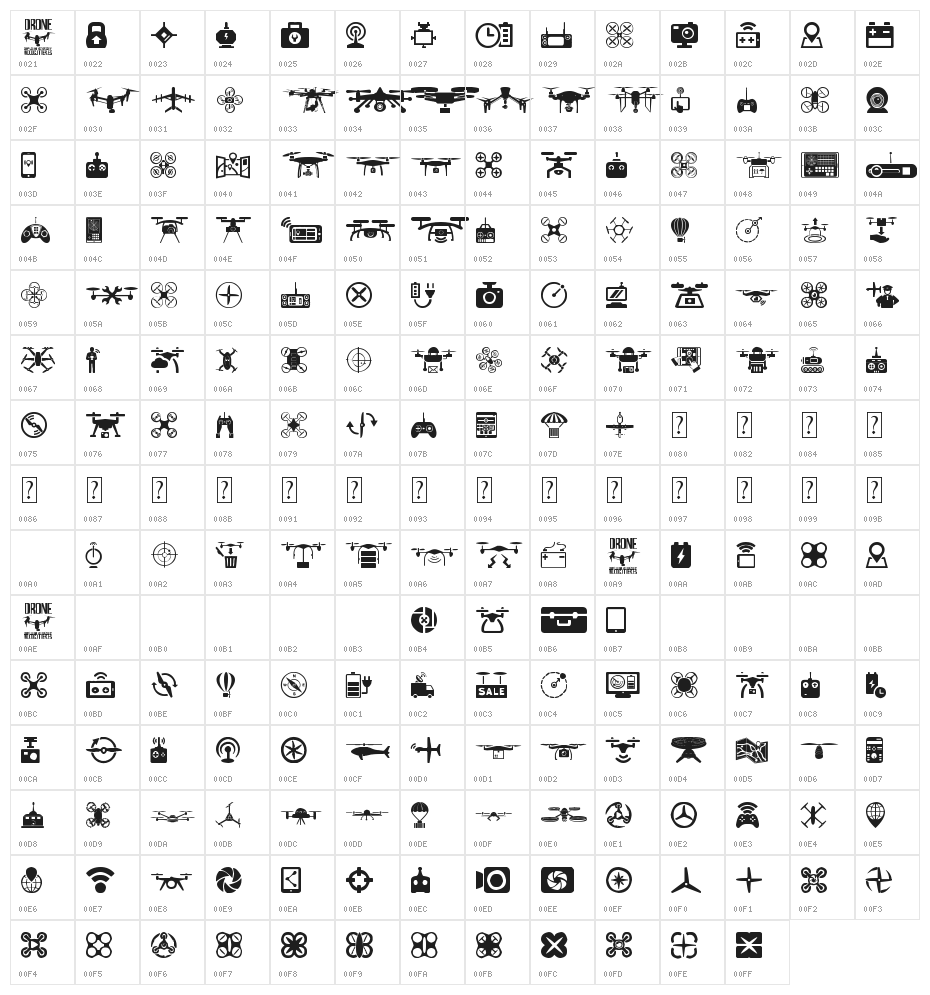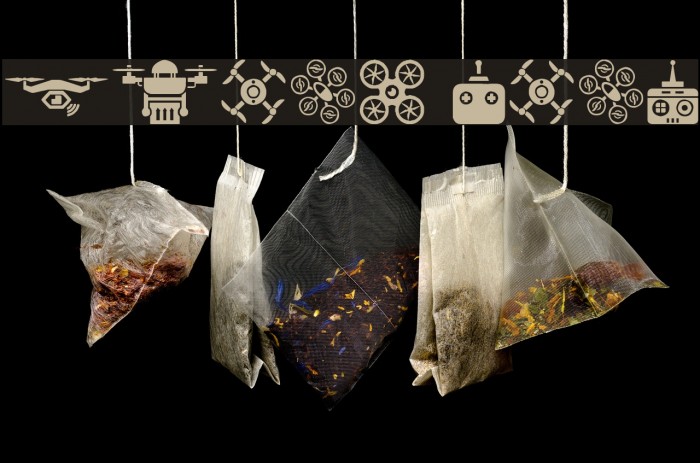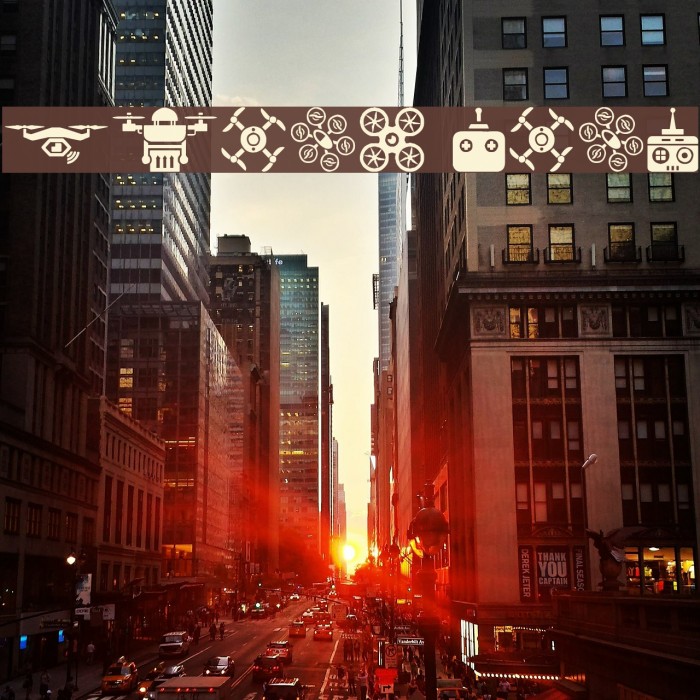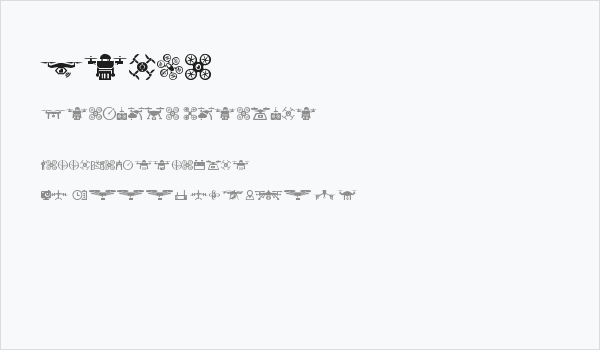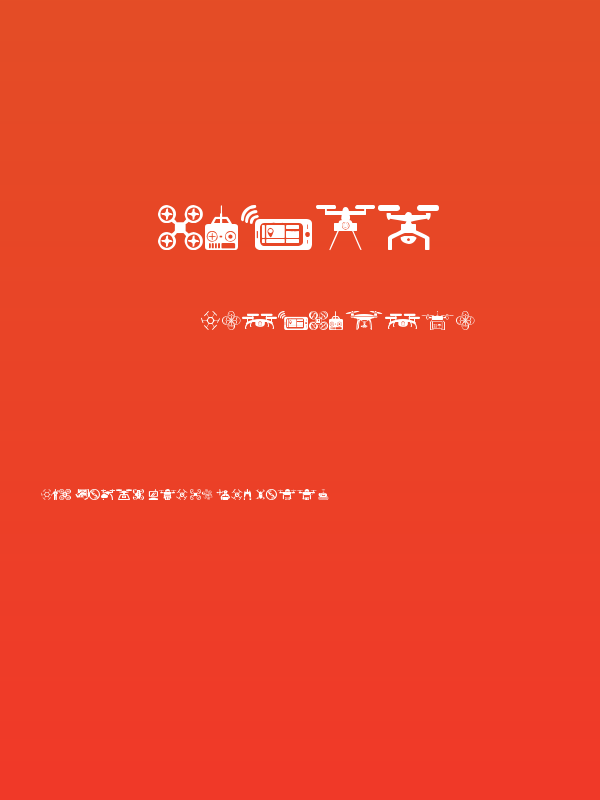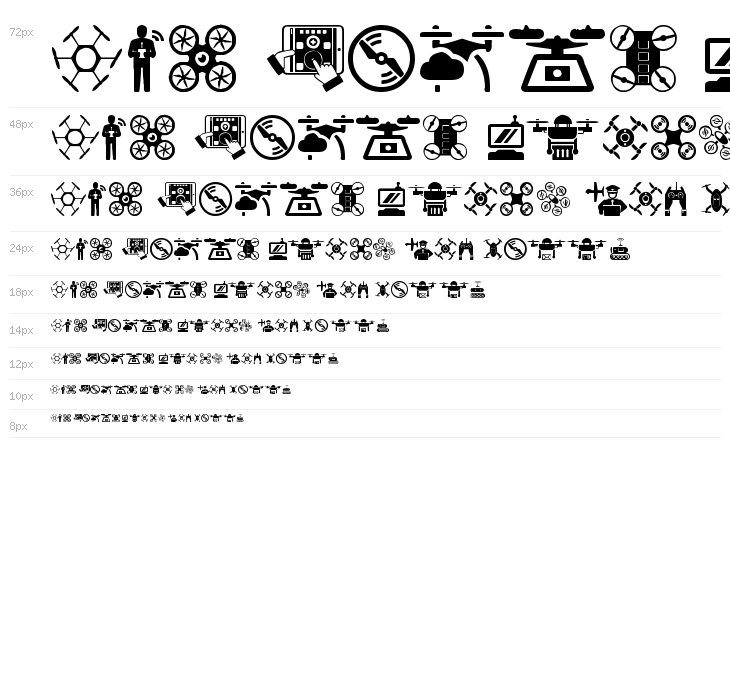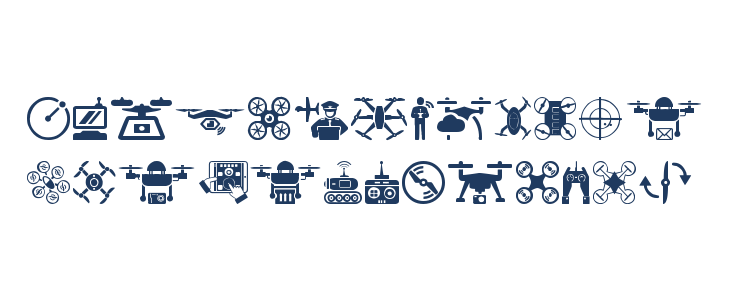
drone Font
drone Description
A decorative icon-based font featuring various drone illustrations, remote controls, and related technology symbols. The glyphs are bold, solid, and highly pictorial, focusing on drone shapes and associated equipment rather than traditional letterforms.
| Overall Style | Decorative, Modern, Thematic |
| Use Case | Logos, Icons, Infographics, Themed Headlines |
| Proposed Projects | Tech branding, drone service logos, infographics, instructional materials, app icons, and themed posters. |